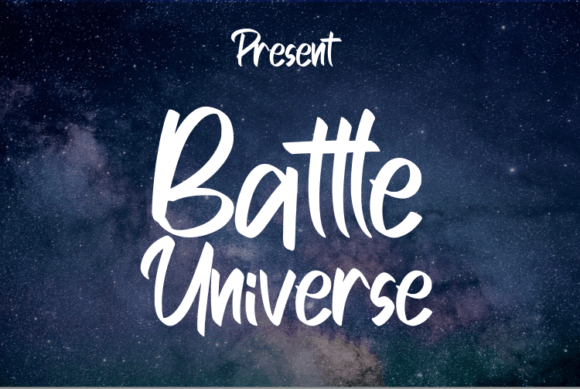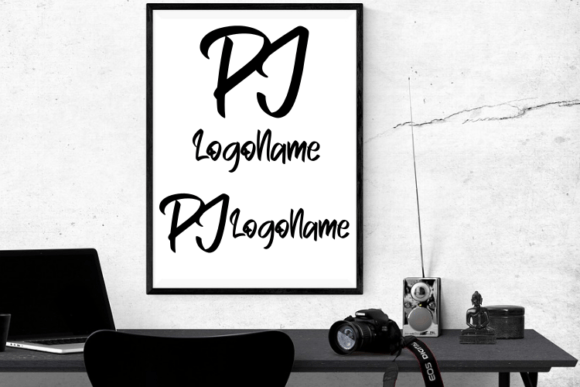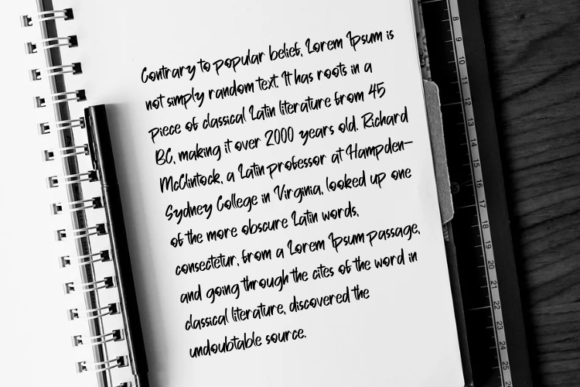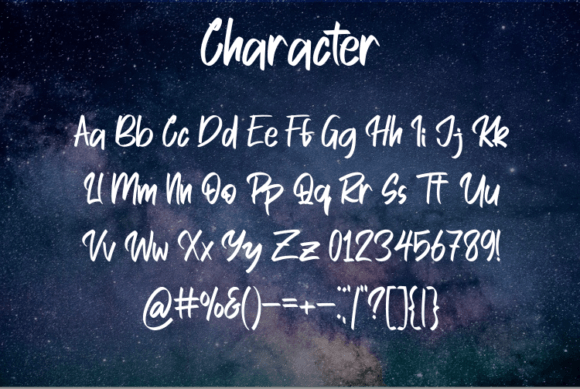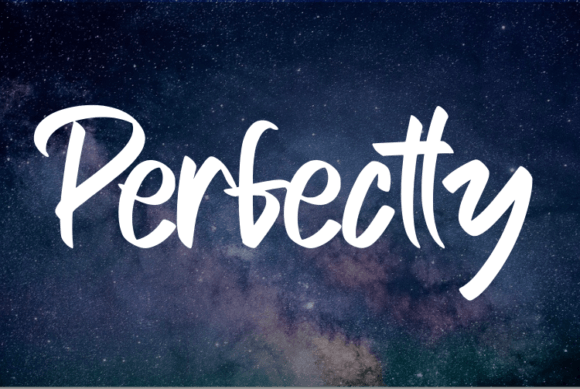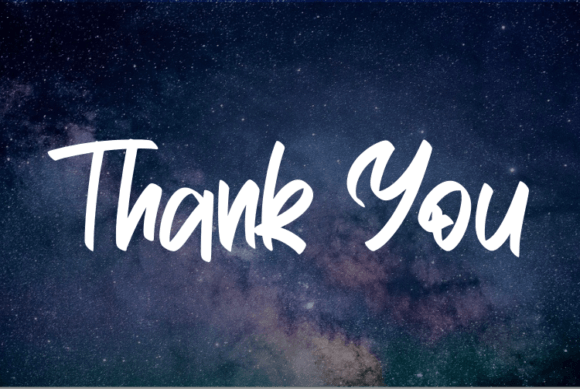
About Battle Universe Font
Battle Universe is a script typeface that has a simple style & modern look.This typeface is perfect for an elegant & luxurious logo, book or moviedesign titles, fashion brands, magazines, clothing, fonts, quotes, and more.